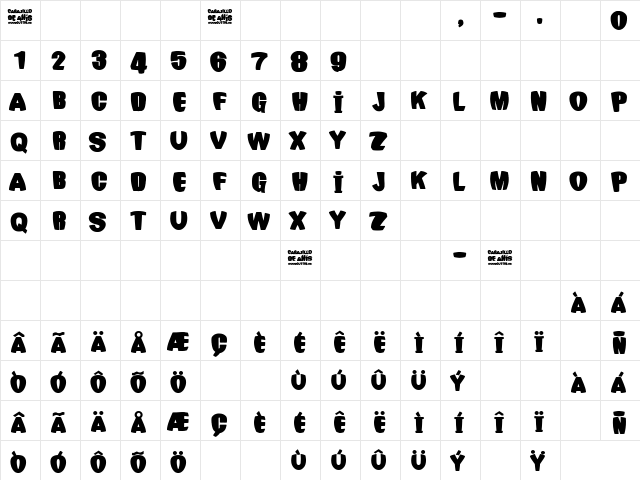
Carajillo de Anҳ Regular Font Preview
Carajillo de Anҳ Regular
Design Context for Carajillo de Anҳ Typeface
Carajillo de Anҳ is a composed and adaptable typeface that performs quietly and consistently across a wide range of design contexts.